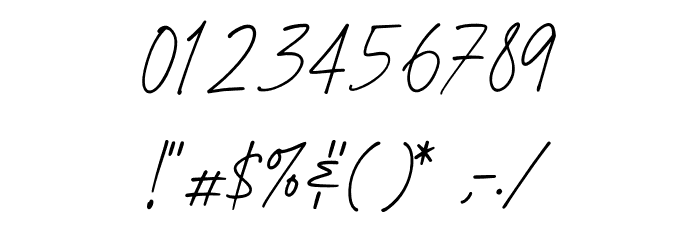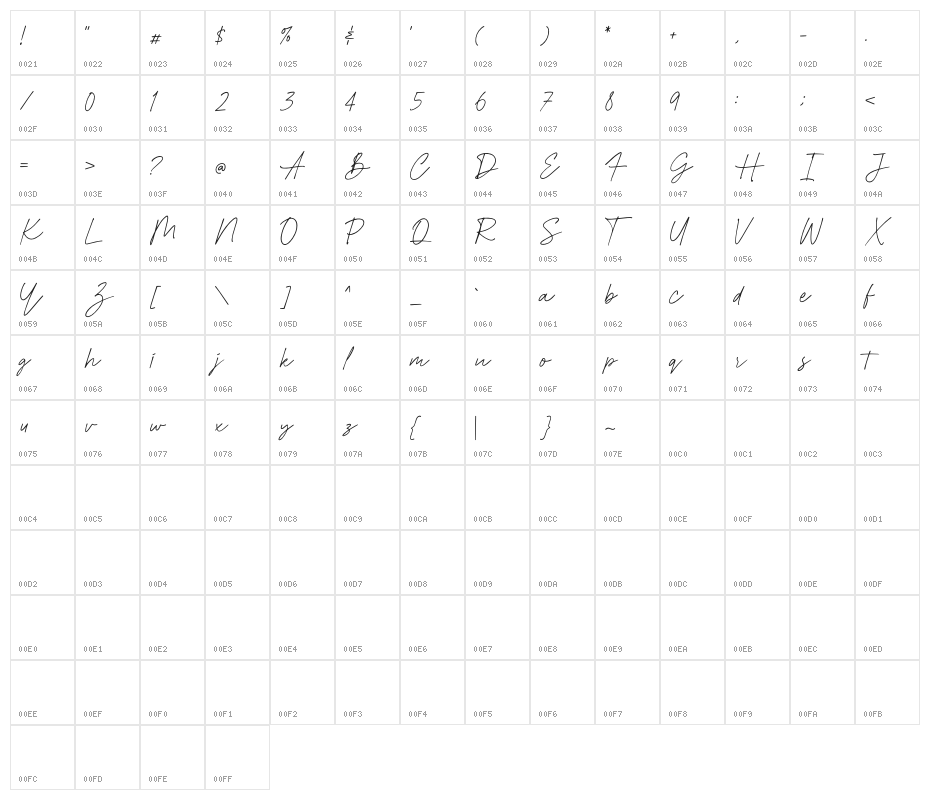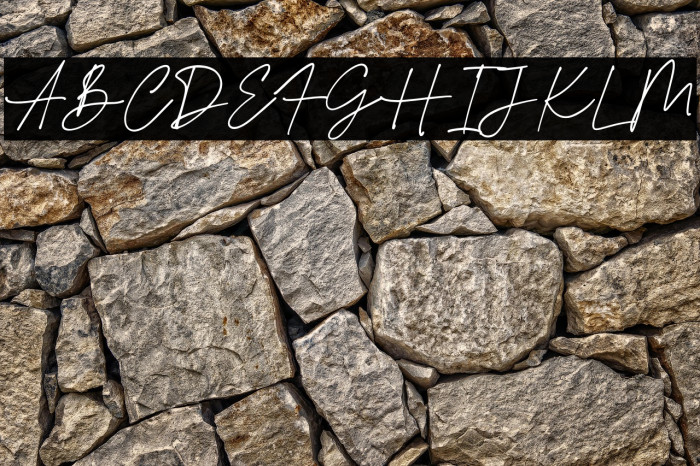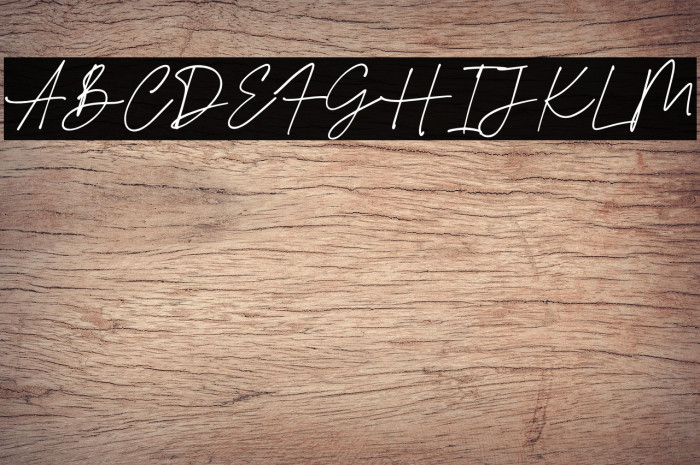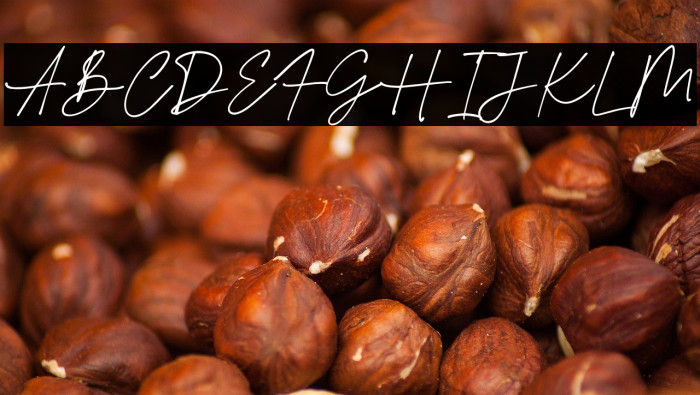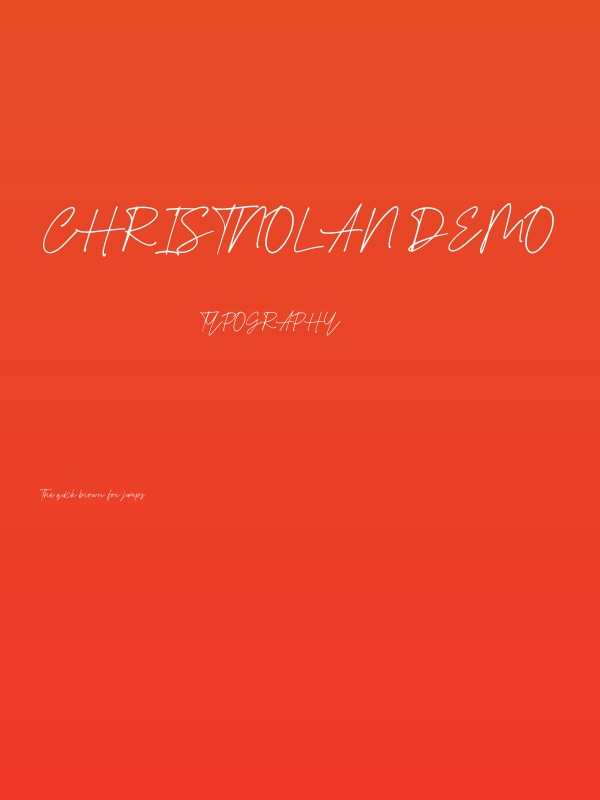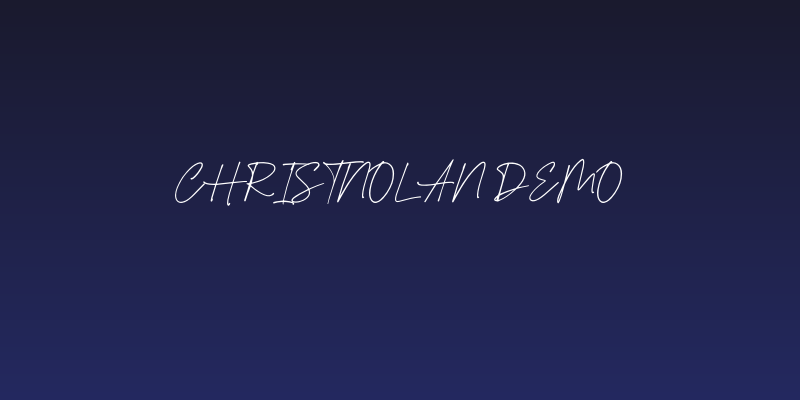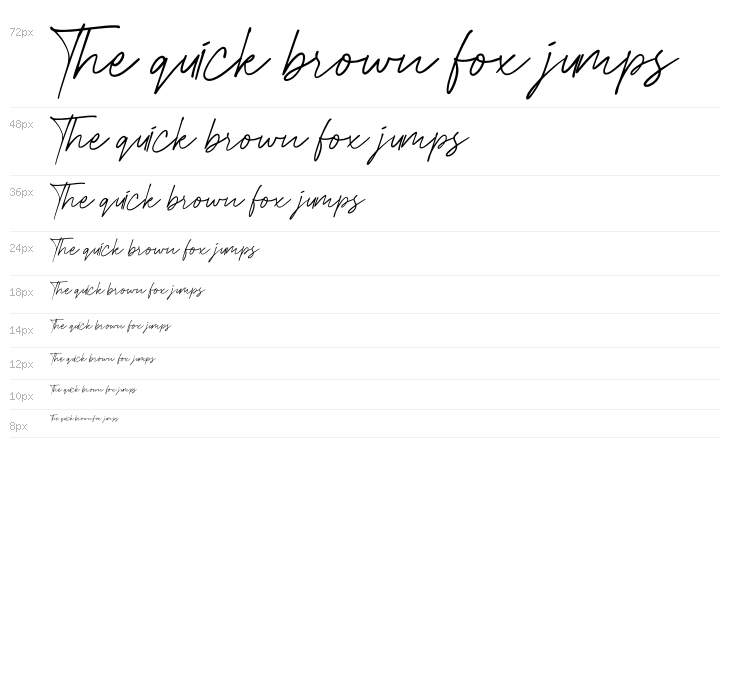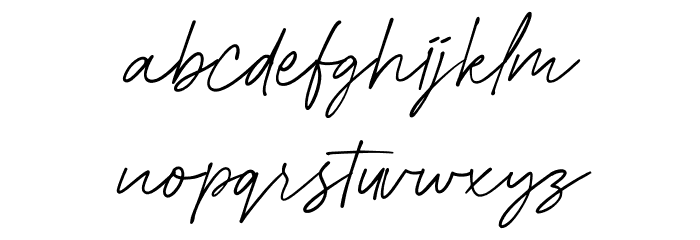
Christnolan Demo Font
Christnolan Demo Description
This font exudes a casual and elegant handwritten style, characterized by its fluid and connected strokes. The uppercase letters are tall and slightly slanted, giving a sense of movement and dynamism. The lowercase letters maintain a consistent flow, enhancing readability while retaining a personal touch. Numbers and special characters are crafted with the same attention to detail, ensuring a cohesive look across all elements. The overall appearance is both sophisticated and approachable, making it suitable for a variety of design contexts.